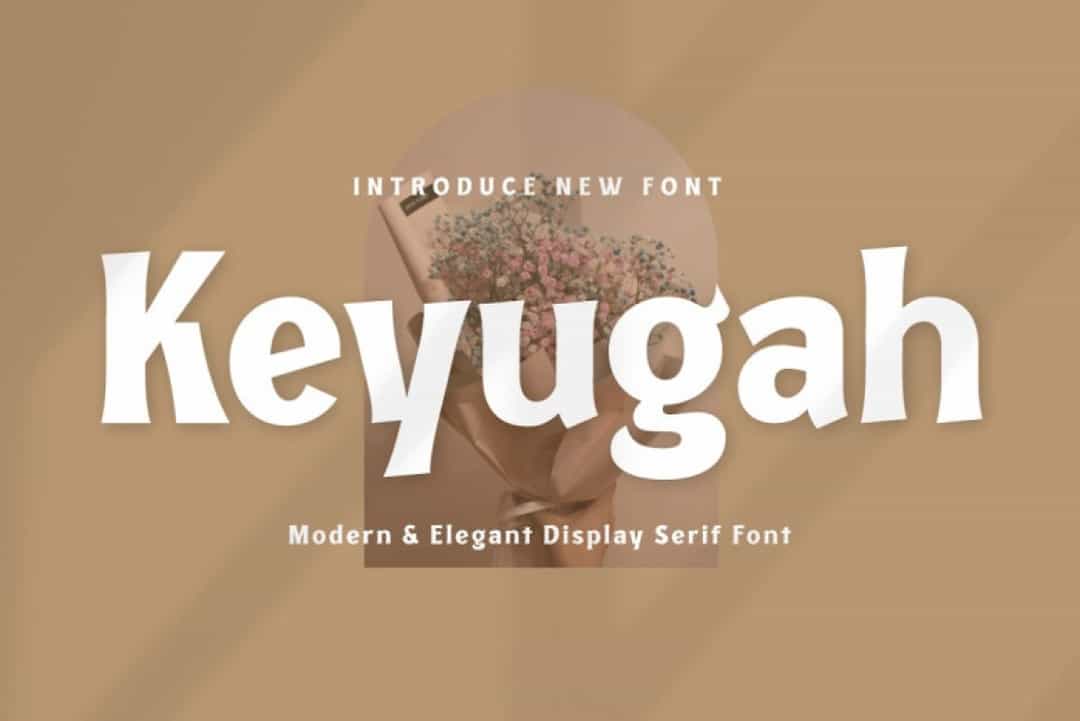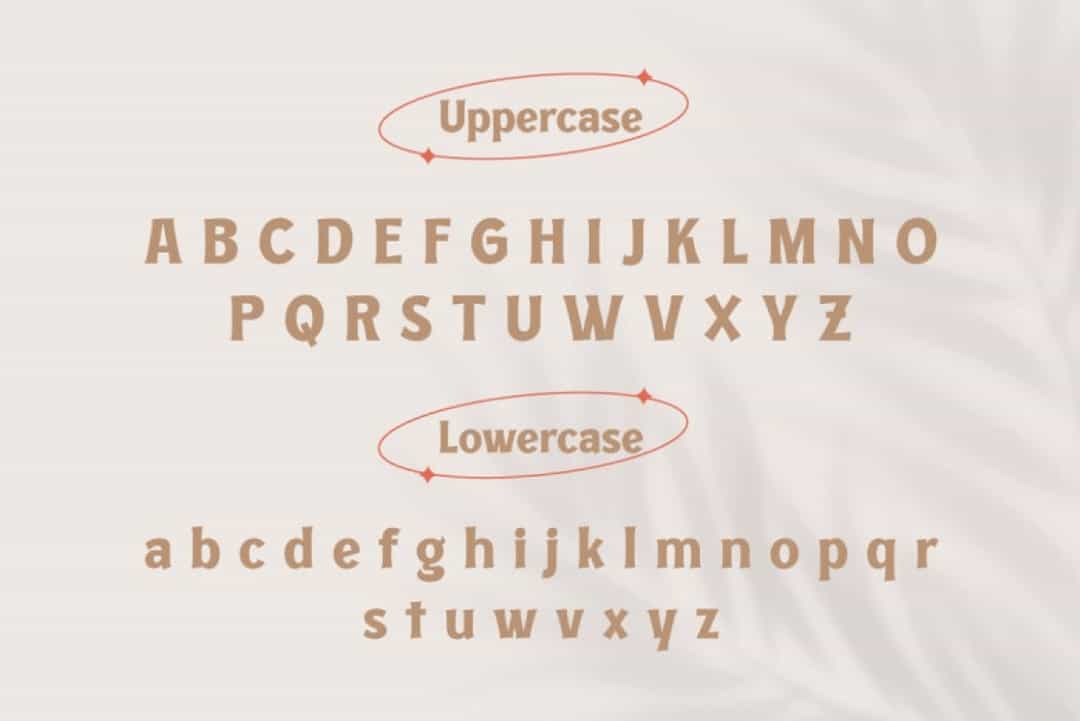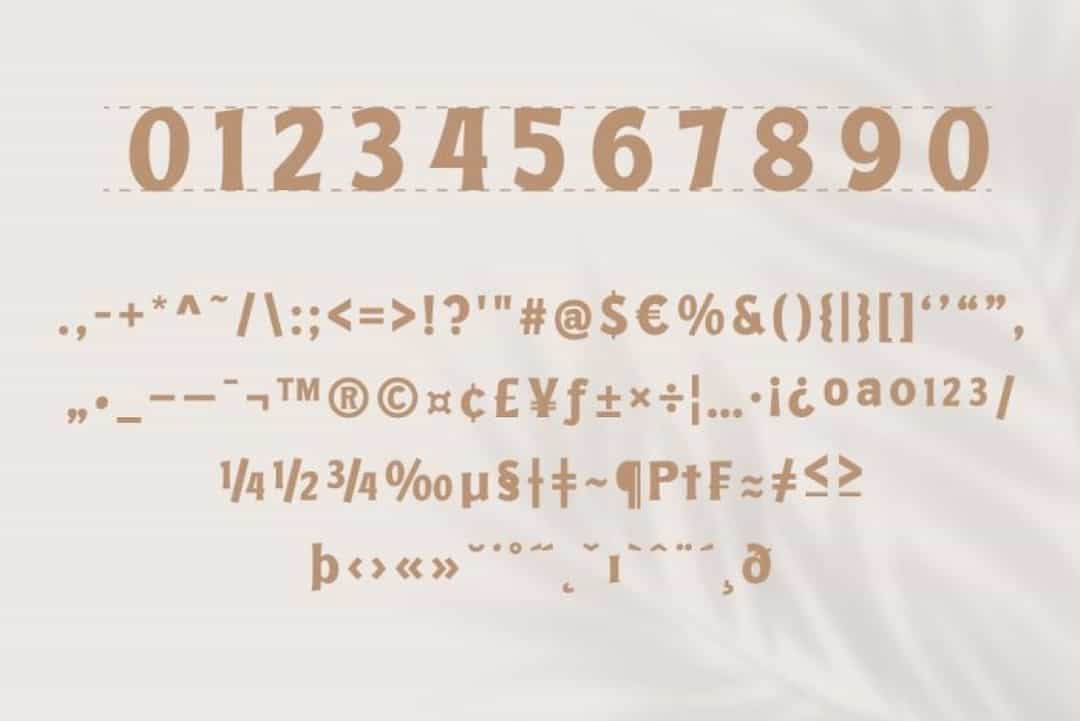
Keyugah is an elegant serif typeface that exudes class and elegance. Its timeless style makes it suitable for use in tasks requiring elegance such as wedding invitations and premium branding materials.